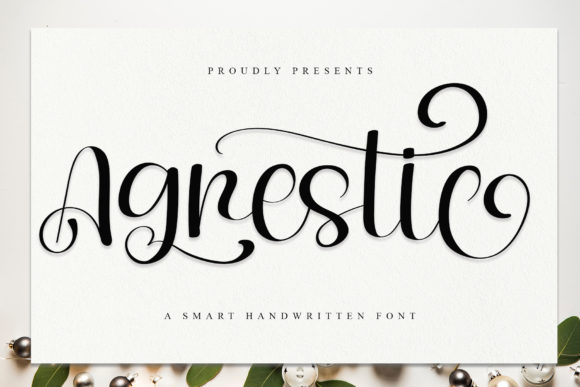
Dive into the enchanting embrace of Agrestic, a script font that will captivate your senses and ignite your creativity. Crafted with the heart and soul of an artist, Agrestic dances across the screen like a breathtaking ballet, leaving a trail of elegance in its wake. Its meticulously designed curves and flowing lines evoke a sense of warmth and joy, making it the perfect choice for your most cherished projects.
Picture this: a Christmas card adorned with Agrestic's graceful strokes, carrying heartfelt messages that resonate with the spirit of the season. Its charming characters will add a touch of whimsy and enchantment to your holiday greetings, spreading love and cheer with every word.
But Agrestic's magic extends far beyond the realm of Christmas. Its versatility knows no bounds, transforming it into a font of endless possibilities. Envision headlines that dance with energy, captivating your audience with their bold and beautiful presence. Let your imagination soar as you craft greeting cards that blossom with heartfelt sentiments, each letter an expression of love and gratitude. The possibilities are as limitless as the stars above.
Immerse yourself in the world of Agrestic, where creativity takes flight and emotions find their voice. Let its enchanting strokes ignite the spark within you, inspiring projects that will leave a lasting impression. Download Agrestic today and embrace the transformative power of a font that embodies the spirit of joy, romance, and endless artistic expression.